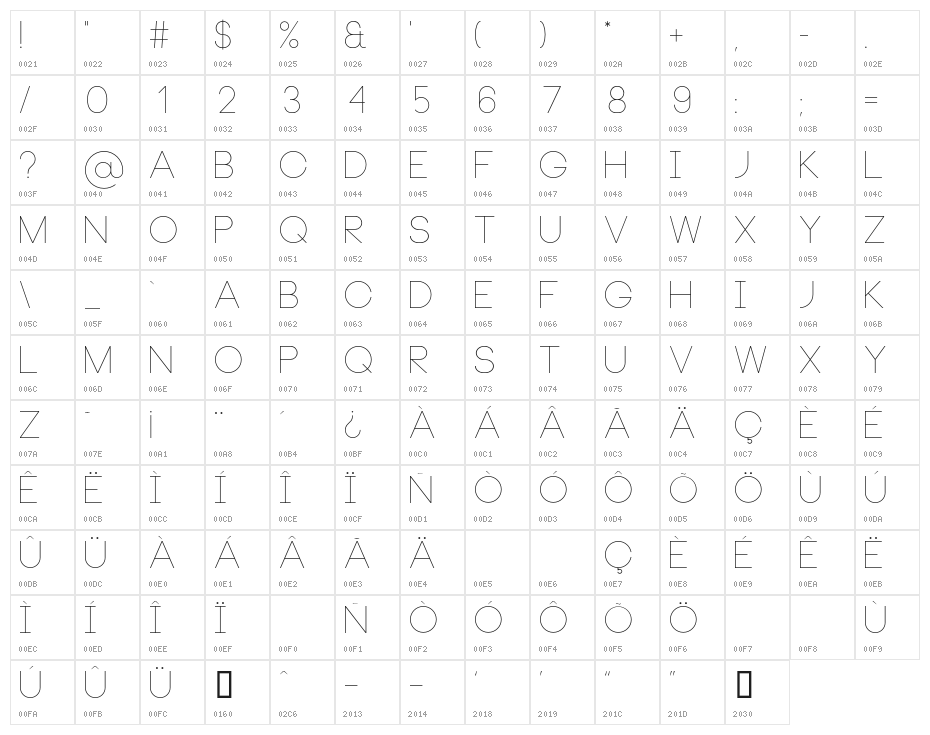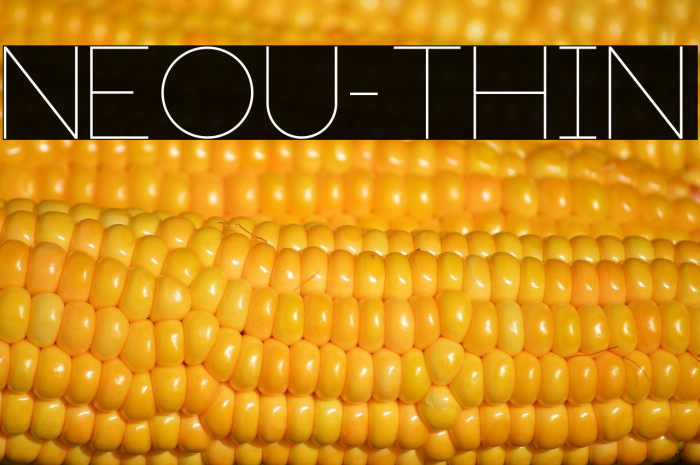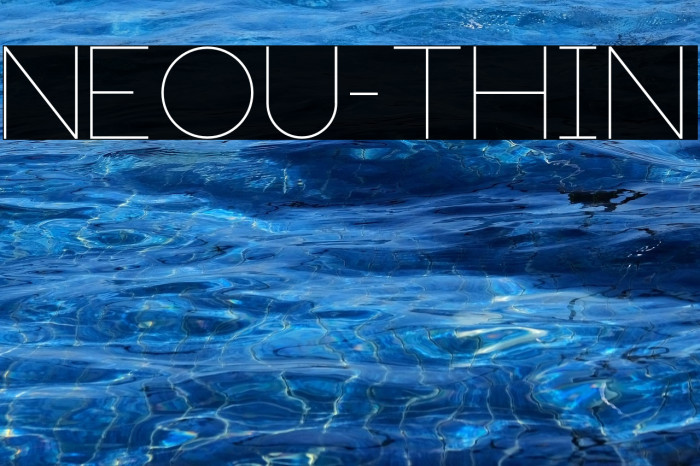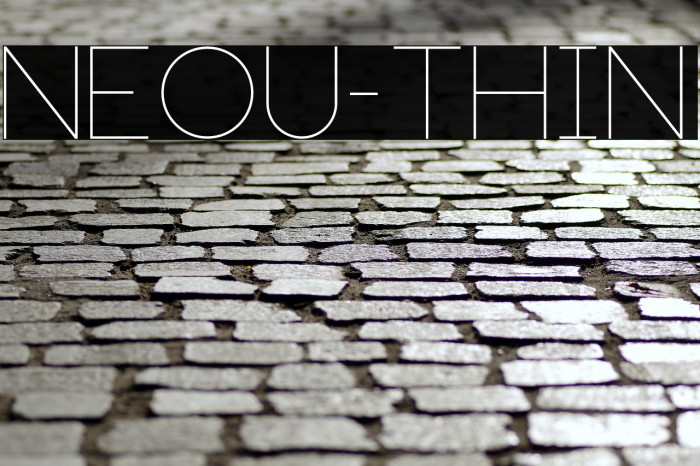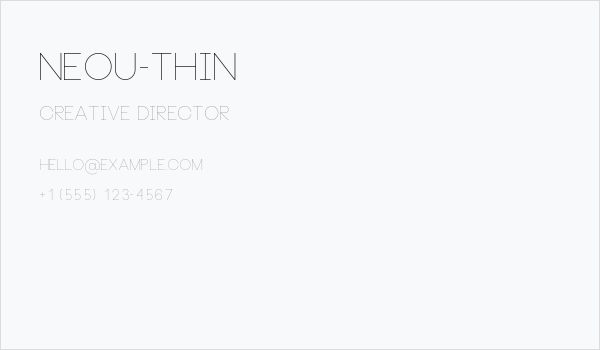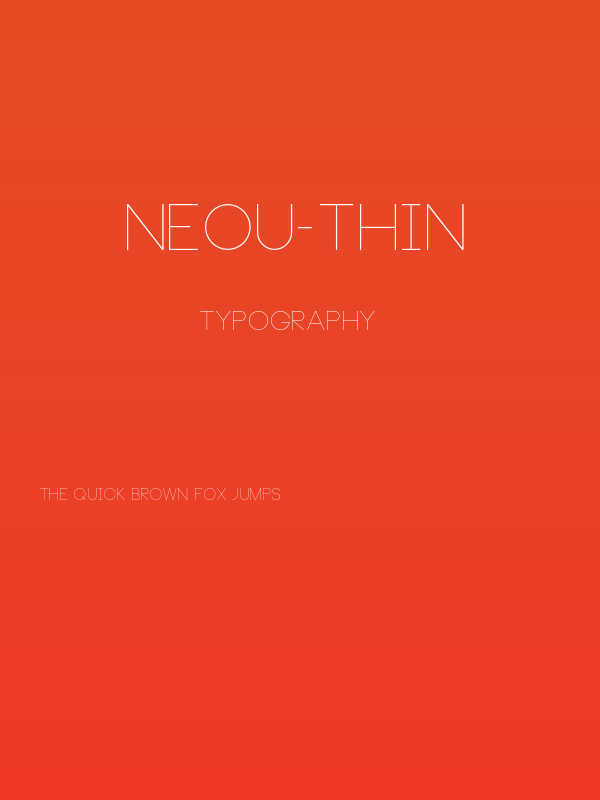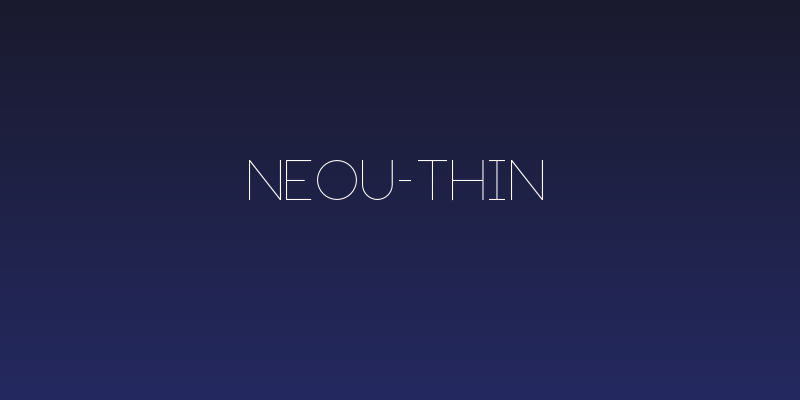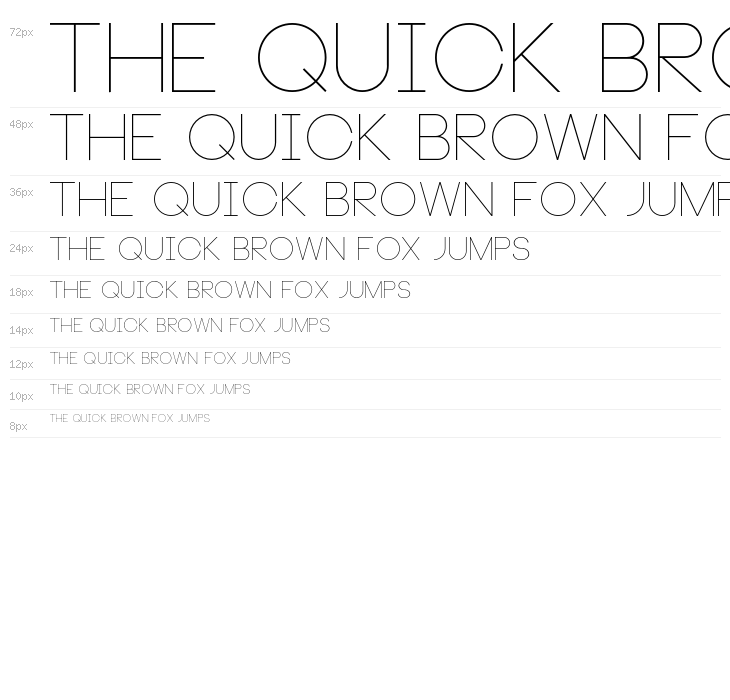
Neou-Thin Font
Neou-Thin Description
This font features a sleek and minimalistic design with thin, uniform strokes that convey a sense of modernity and elegance. The characters are cleanly structured, with a geometric influence that is evident in the circular shapes of the 'O' and 'Q', as well as the straight lines of the 'L' and 'T'. The font maintains a consistent line weight throughout, which contributes to its refined and sophisticated appearance. The numerals and special characters are designed to match the overall aesthetic, ensuring a cohesive look across all text elements. This font is ideal for projects that require a contemporary and stylish touch.
| Proposed Projects | Ideal for branding, editorial design, minimalist posters, and digital interfaces. |